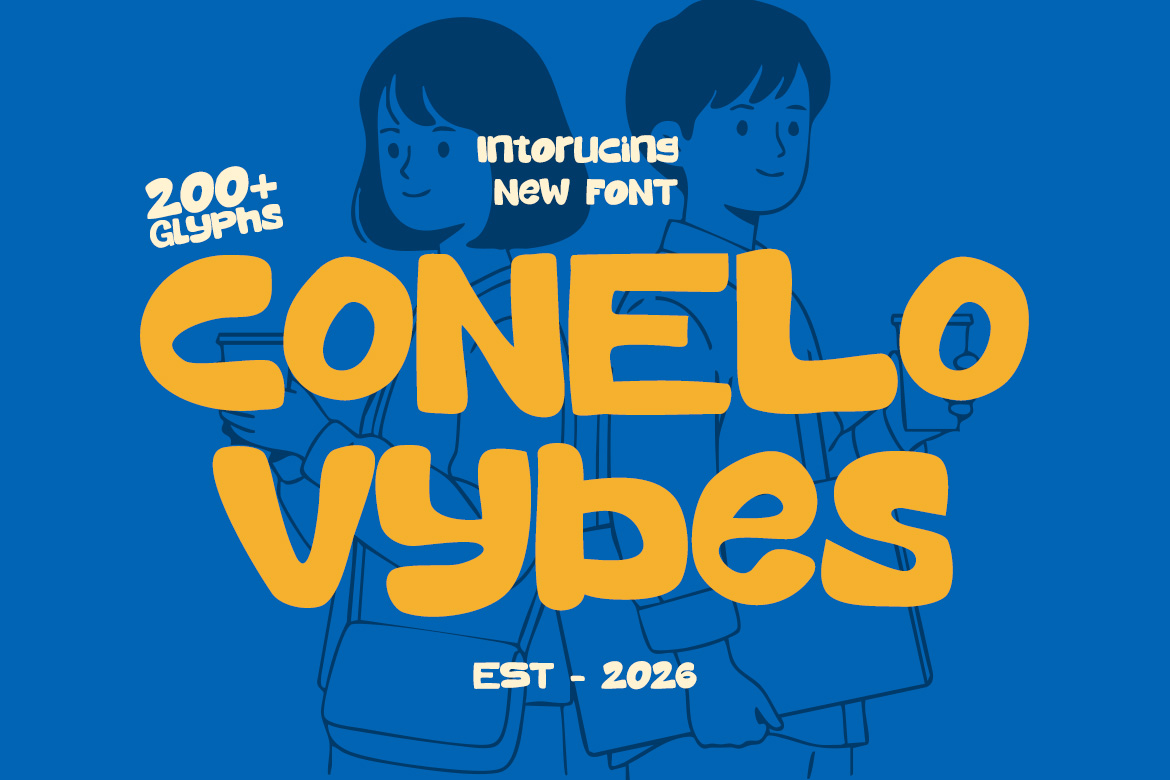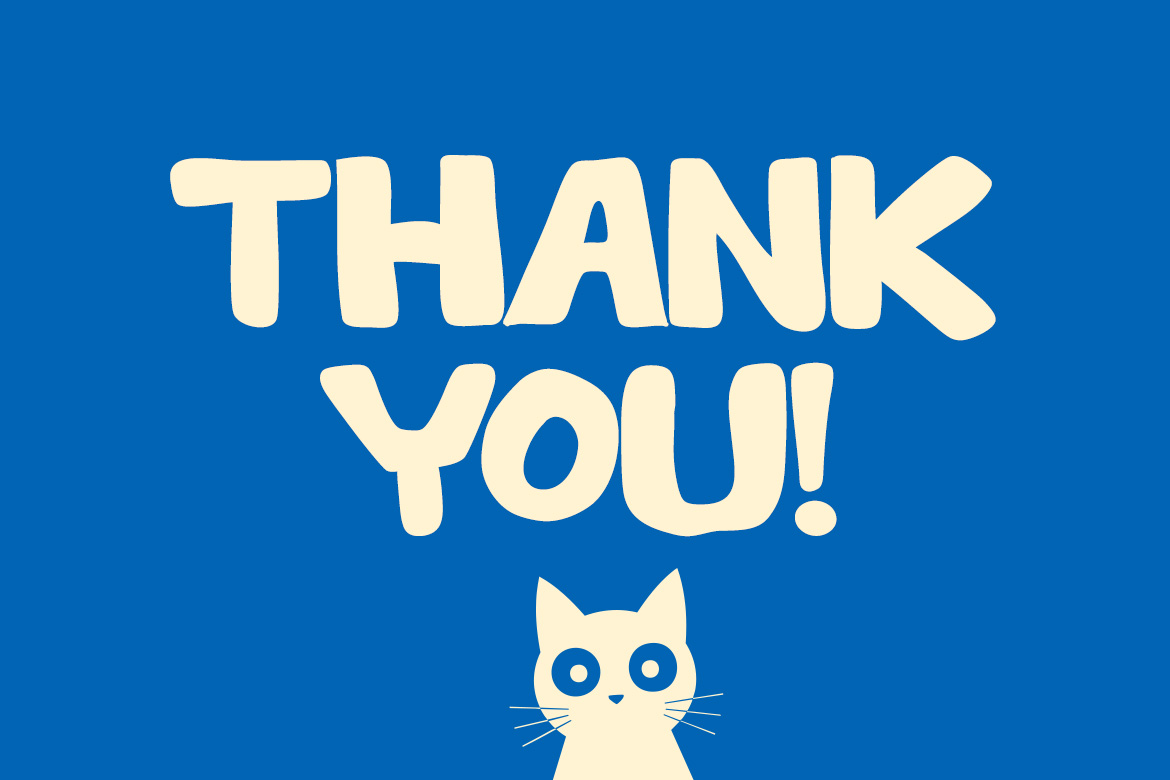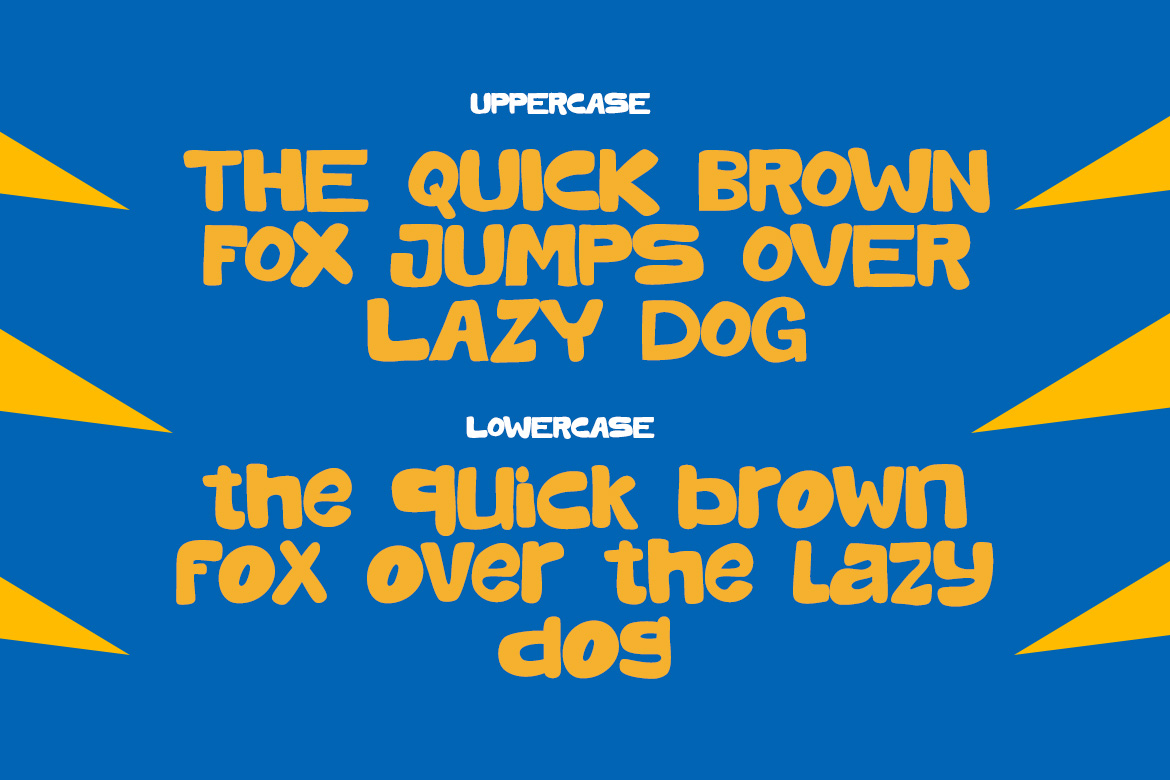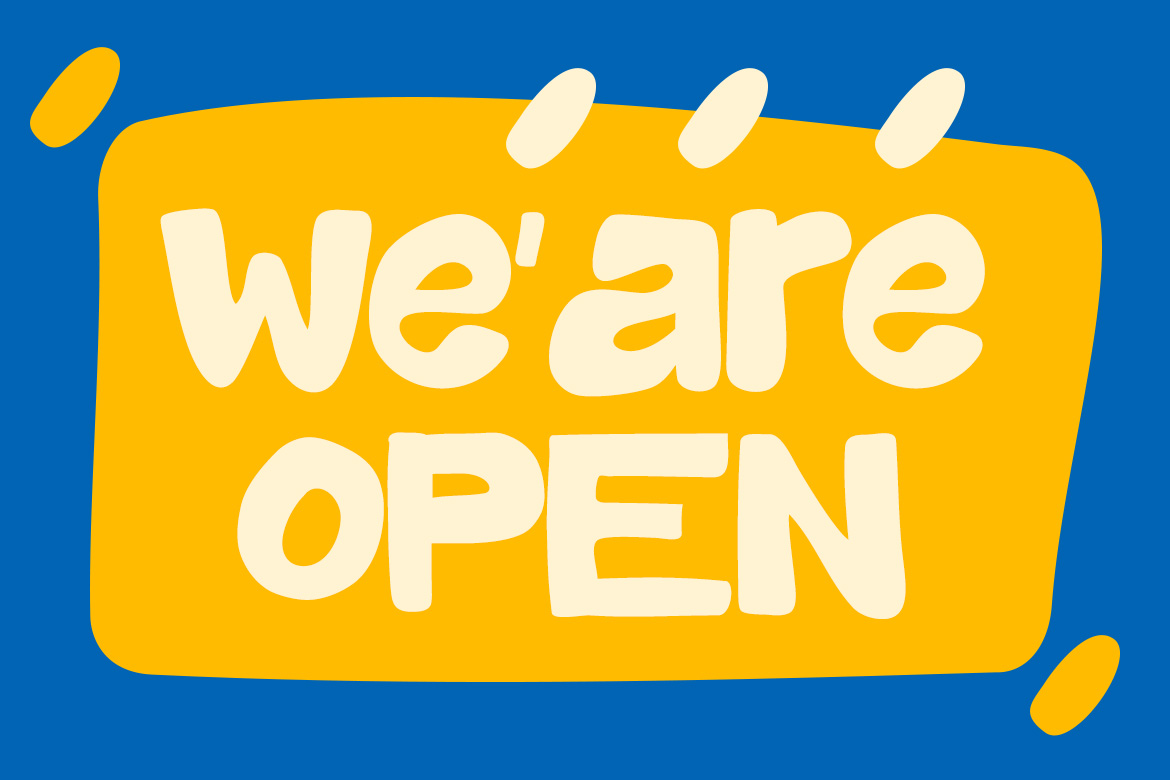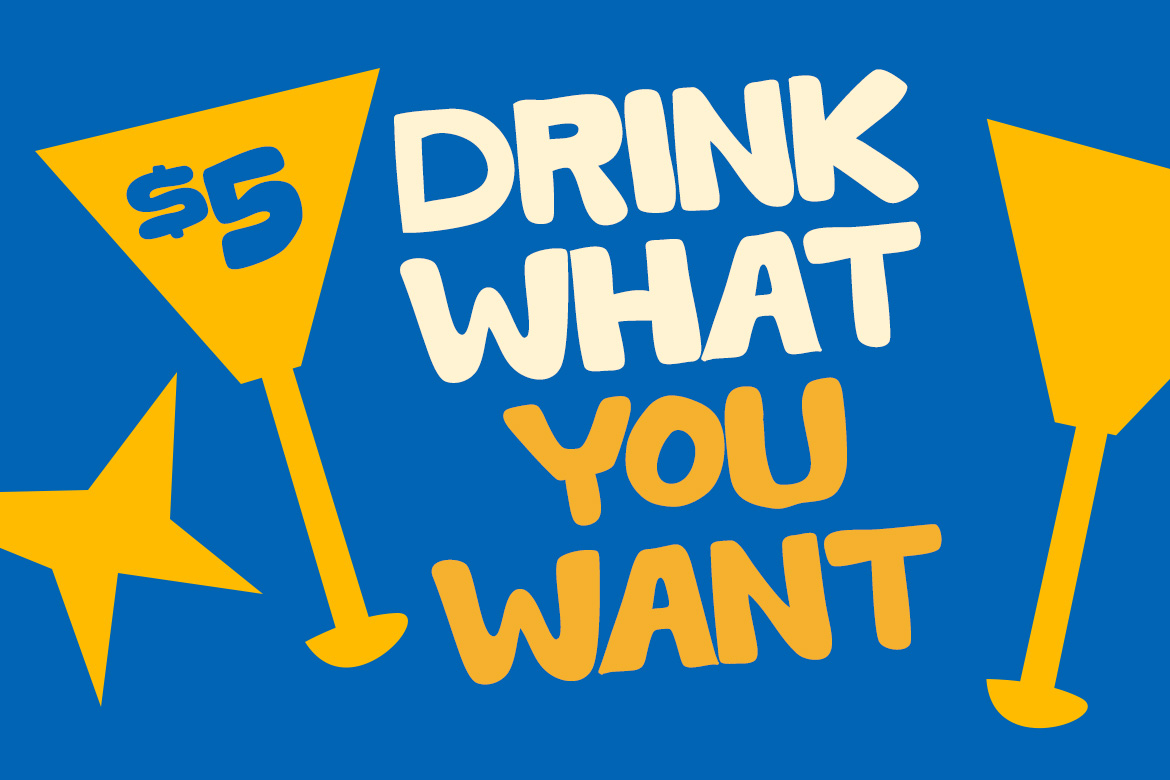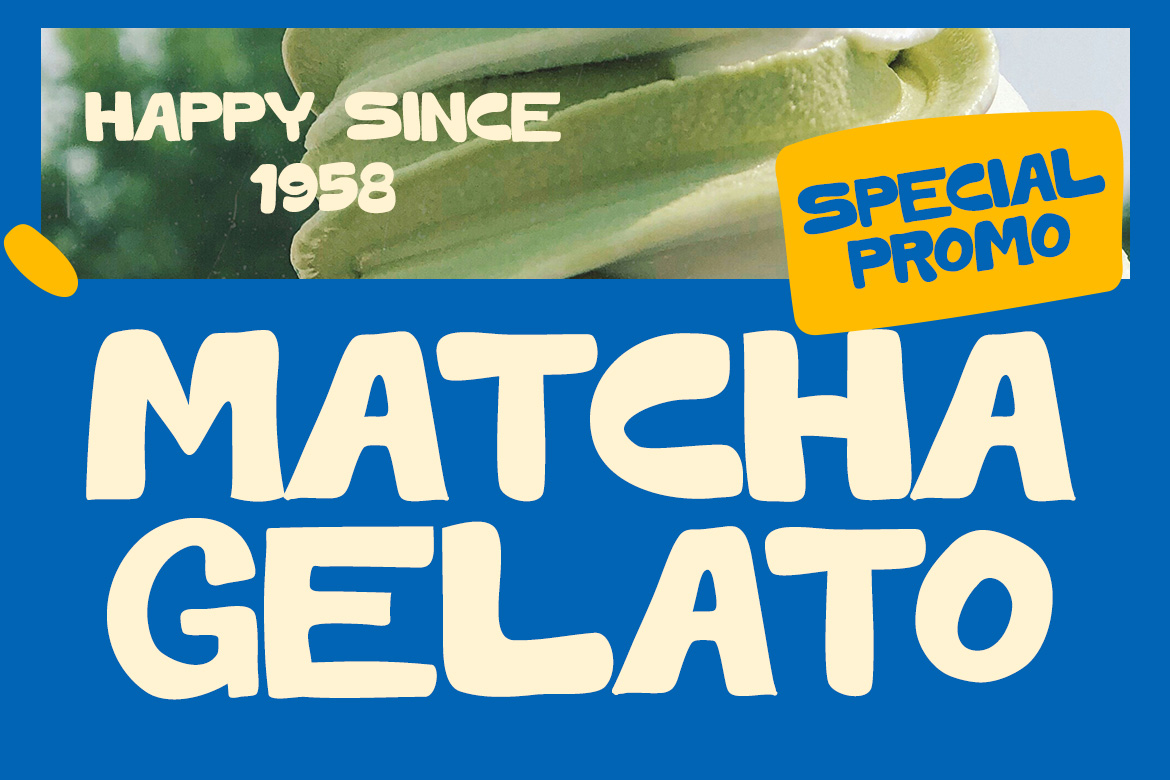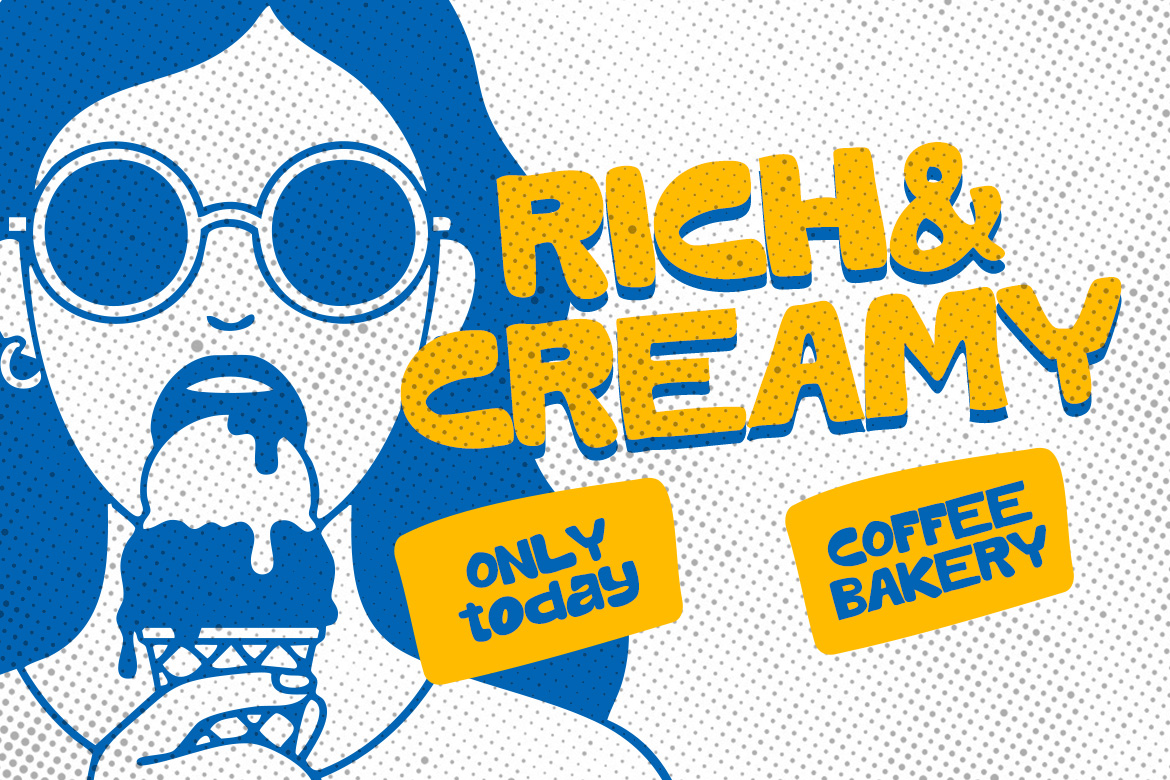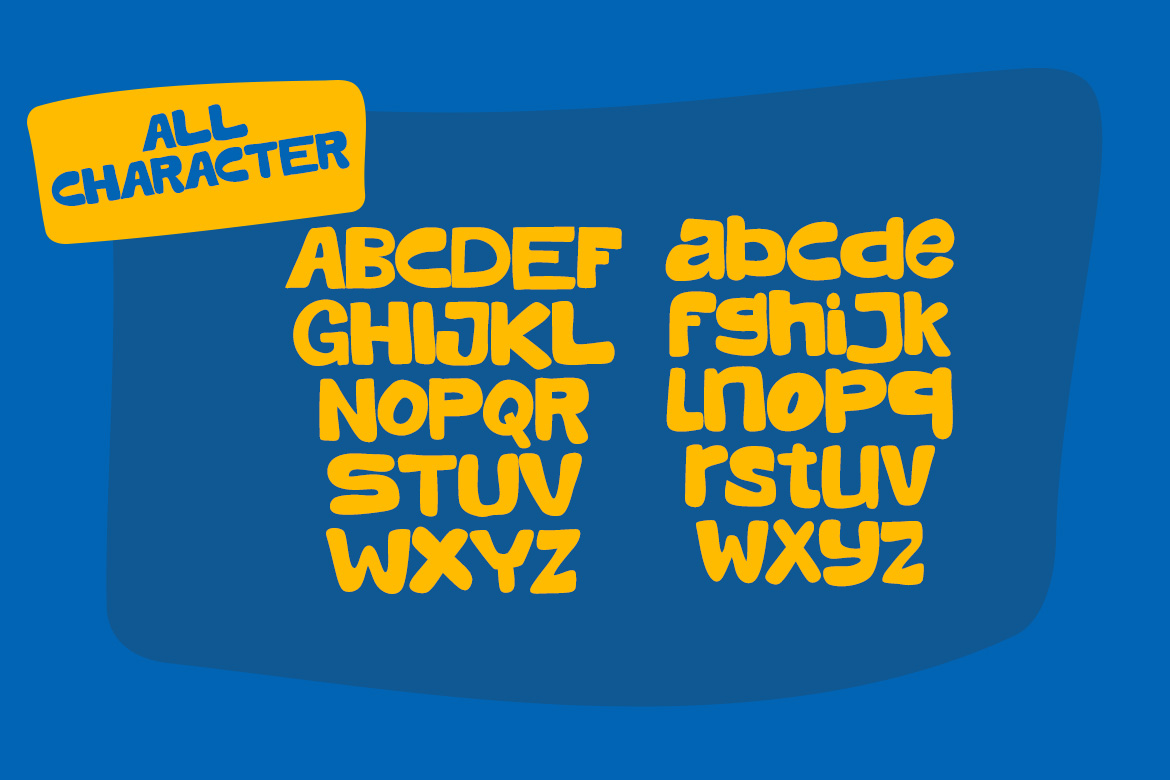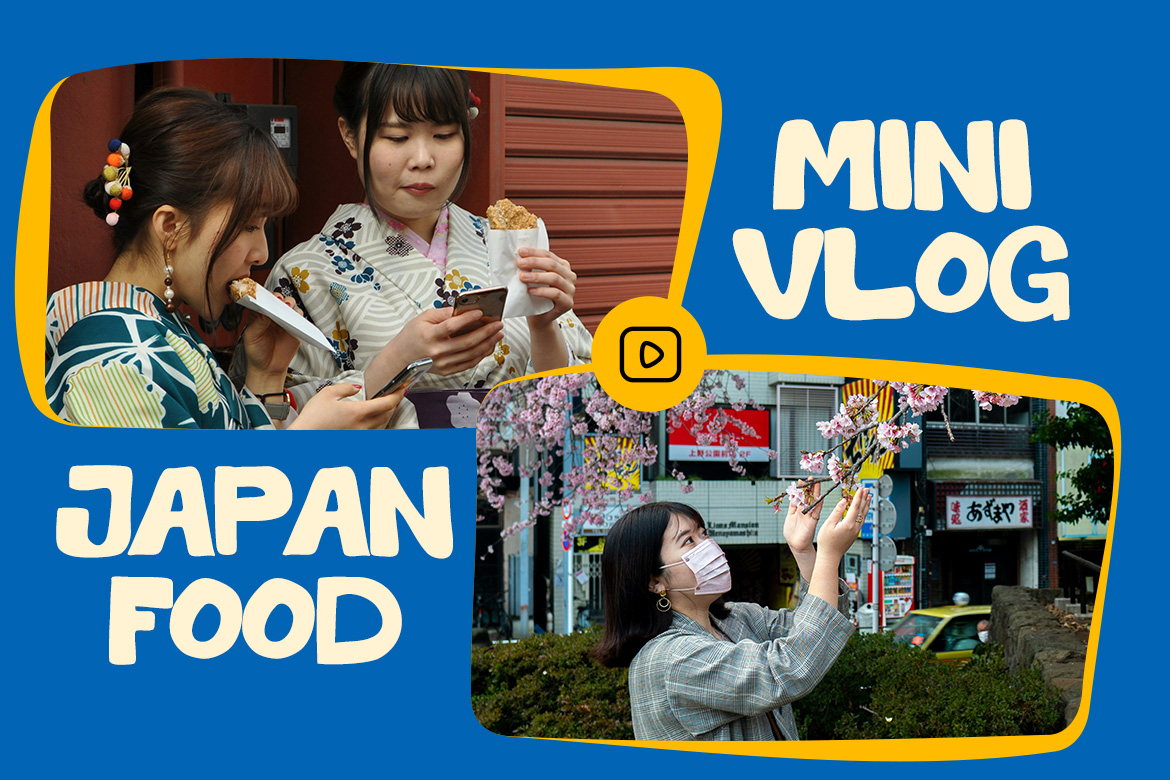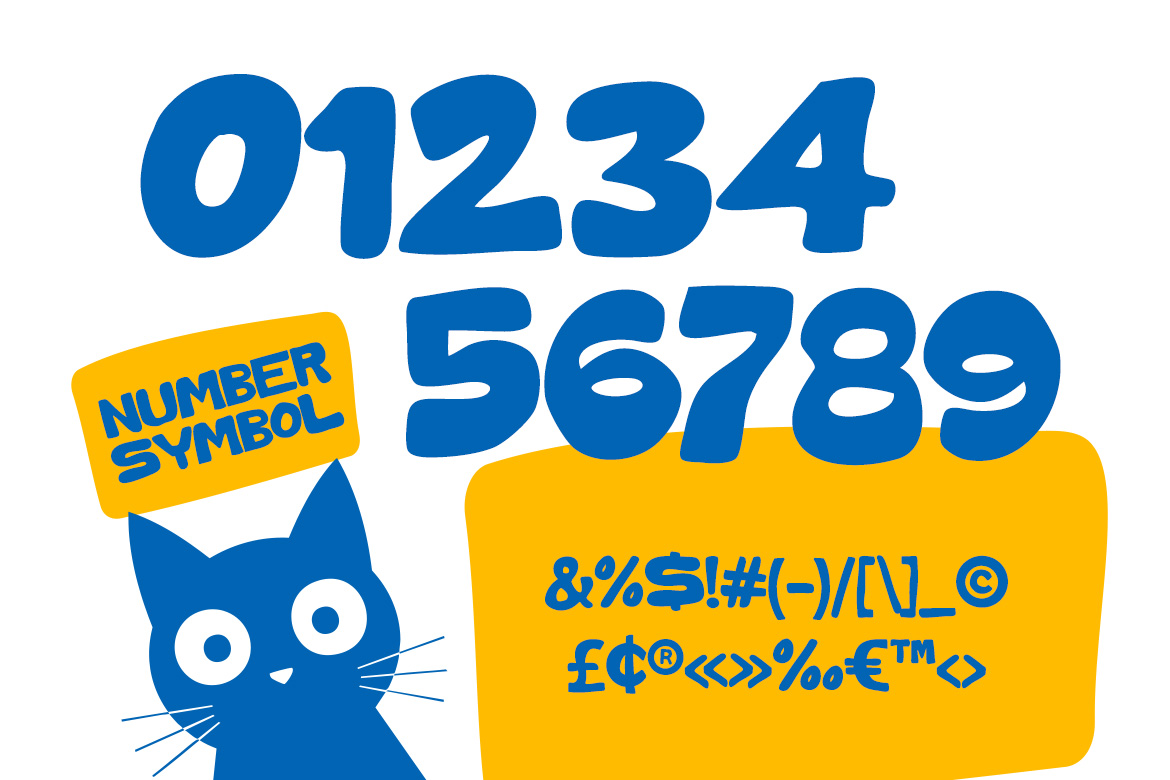
Display typeface · Latin
Conelo
Conelo Vybes is a captivating display typeface characterized by its extremely bold and rounded letterforms, exuding a playful and friendly aesthetic. In Package : OTF TTF WOFF WOFF2 Feature : Uppercase Lowercase Numerals Punctuation Easy To Install Perfect for Bakery and café branding Food and beverage logos Restaurant menus and signage Coffee shop and donut shop designs Food packaging and labels Social media food promotions Kitchen-themed posters and prints Culinary blogs and recipe graphics